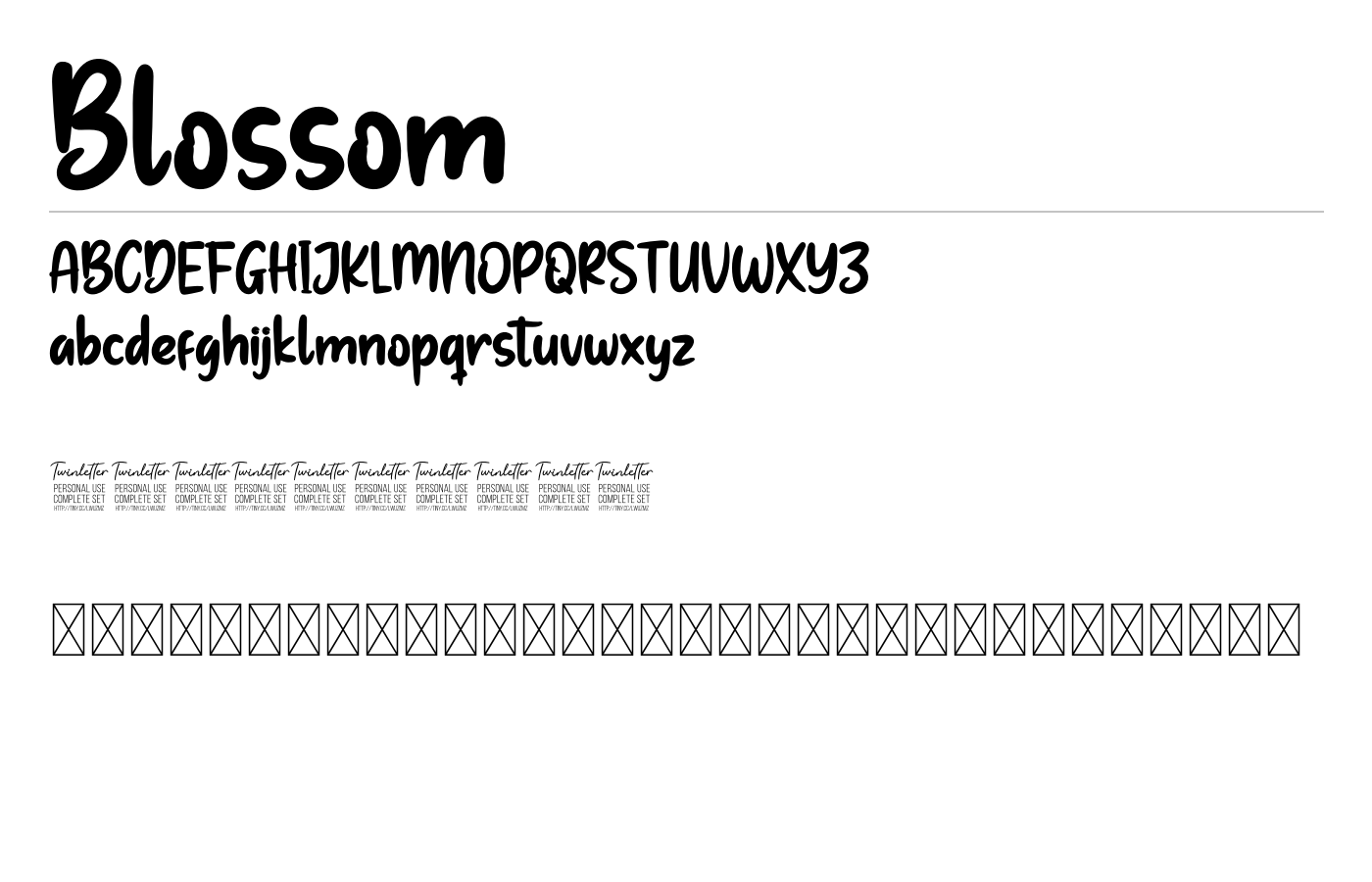
Blossom Font is a playful and casual handwritten script with a friendly, bold appearance and rounded forms that give it a warm, approachable feel. Its slightly irregular strokes and lively character shapes make it perfect for creative branding, greeting cards, and informal headlines where a personal touch is desired. This font works well in designs aiming to convey cheerfulness and authenticity, adding charm to invitations, logos, and packaging.
Blossom Font
About Blossom Font
| Font family | Blossom Font |
| Designer | rozikan |